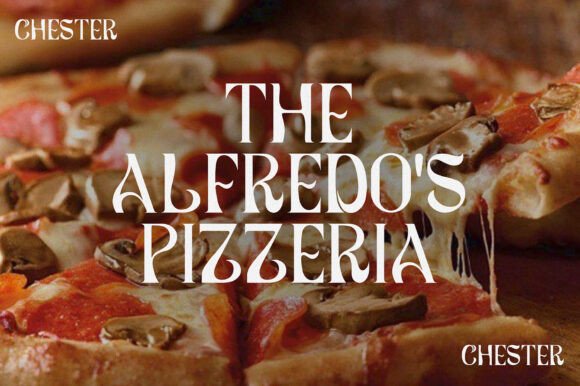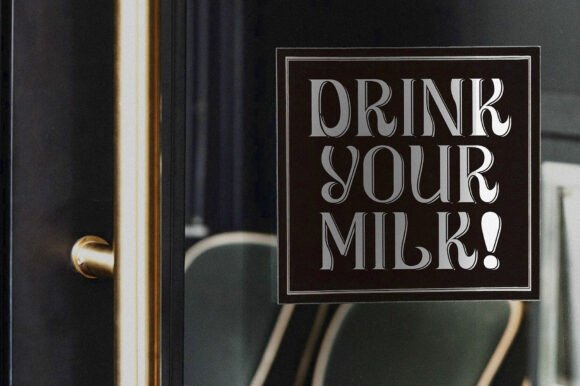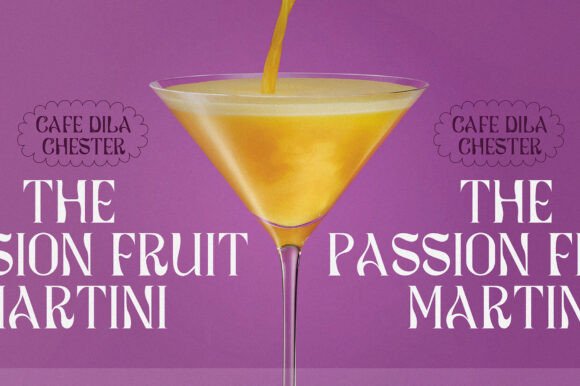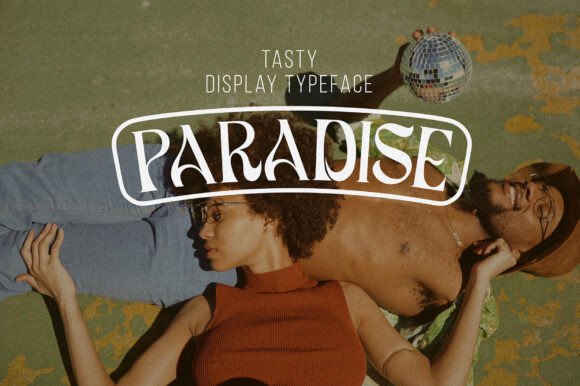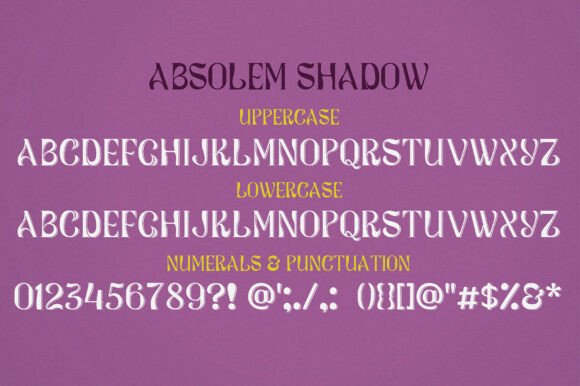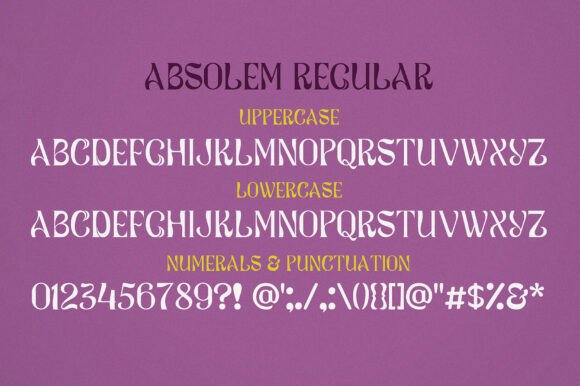
Discover the Whimsical World of Absolem Font
Are you tired of using the same old fonts for your design projects? Look no further than Absolem Font, a unique and captivating typeface that’s sure to make your work stand out. With its happy, weird, and wonderful vibe, Absolem is the perfect choice for any project that needs something loud and avant-garde.
The Magical Quality of Absolem
Absolem Font boasts a magical quality that’s hard to find in other typefaces. Its unusual design elements and quirky charm make it an excellent choice for designers and crafters looking to add a touch of whimsy to their work. Whether you’re creating headlines, packaging, posters, or any other display materials, Absolem is sure to bring a level of excitement and energy to your designs.
Eerie yet Wonderful
One of the things that sets Absolem apart from other fonts is its eerie vibe. While it may seem unusual or even unsettling at first glance, this font is sure to grow on you and become a favorite in your design arsenal. The eerie quality of Absolem makes it perfect for projects that require a sense of mystery or intrigue, such as Halloween-themed designs, horror movie posters, or even just adding a touch of edge to your everyday designs.
Perfect for Display Purposes
Absolem Font is specifically designed with display purposes in mind. Its bold, eye-catching design makes it perfect for headlines, titles, and other prominent text elements. Whether you’re creating a poster, flyer, or social media graphic, Absolem is sure to grab attention and draw viewers in. Plus, its versatility means it can be used for a wide range of projects, from playful and fun to dark and moody.
What Makes Absolem Unique?
So what sets Absolem apart from other fonts on the market? Here are just a few of the things that make it truly unique:
- Unconventional design: Absolem’s unusual design elements and quirky charm make it a true standout in the world of typography.
- Magical quality: Absolem has a certain je ne sais quoi that’s hard to put into words. Its magical quality makes it perfect for projects that require a sense of wonder or enchantment.
- Eerie vibe: Absolem’s eerie quality makes it perfect for projects that require a sense of mystery or intrigue.
- Versatility: Absolem can be used for a wide range of projects, from playful and fun to dark and moody.
Tips for Using Absolem Font
Now that you’re excited about Absolem Font, here are a few tips for using it effectively in your designs:
- Use it sparingly: Absolem is a bold font, so it’s best to use it sparingly to avoid overwhelming your design.
- Experiment with colors: Absolem looks great in a variety of colors, so don’t be afraid to experiment and find the perfect hue for your design.
- Pair it with other fonts: Absolem can be paired with other fonts to create a unique and interesting design. Try pairing it with a clean, sans-serif font for a bold and eye-catching look.
Absolem Font is a unique and captivating typeface that’s sure to add a touch of magic to your design projects. With its happy, weird, and wonderful vibe, Absolem is perfect for any project that needs something loud and avant-garde. Whether you’re a designer, crafter, or just someone looking to add a little excitement to your work, Absolem is sure to become a favorite in your design arsenal.